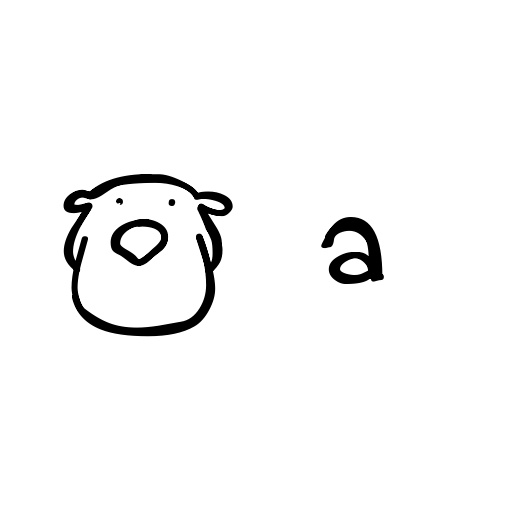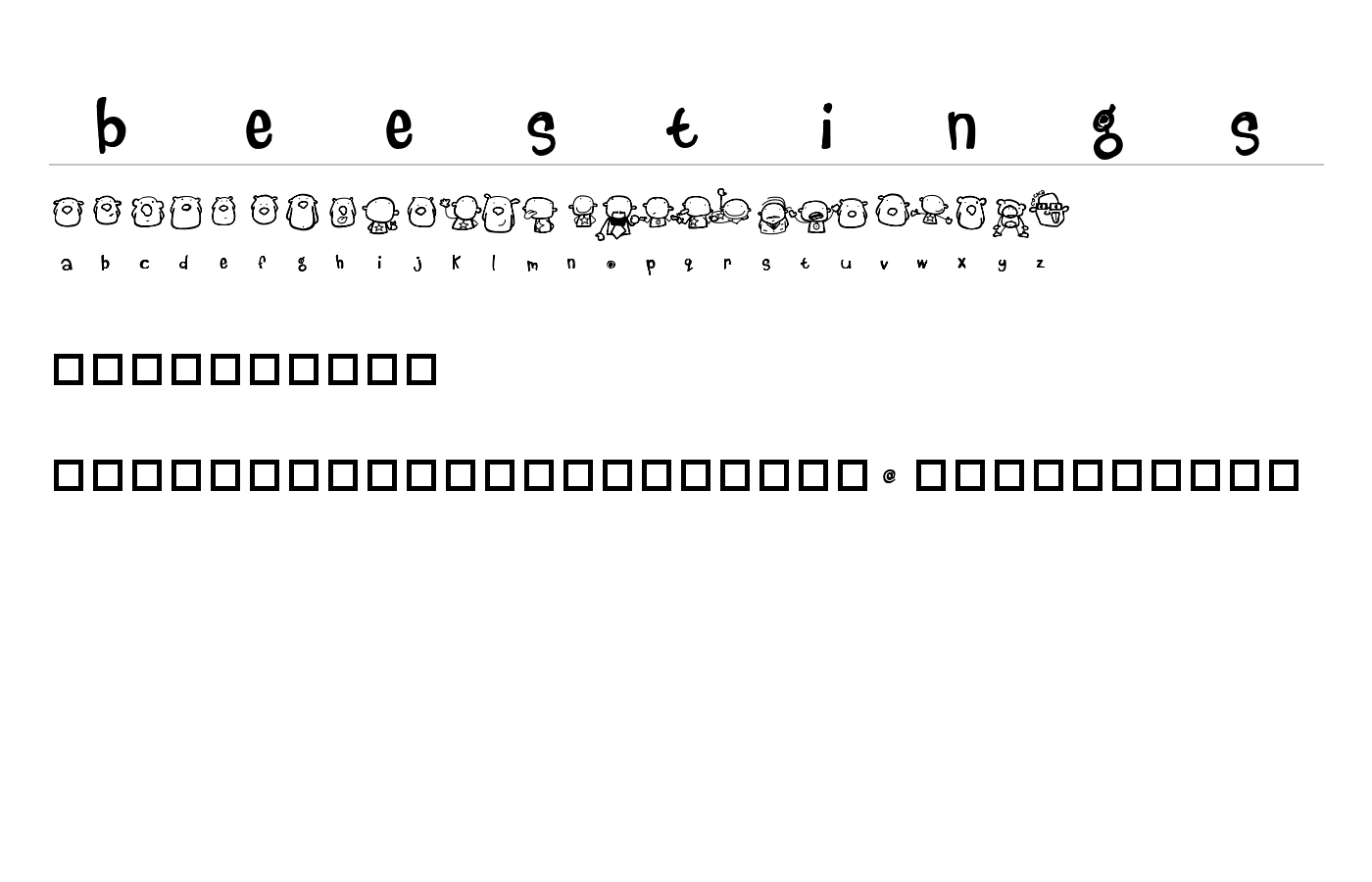
Beestings is a playful, hand-drawn sans serif font featuring quirky, uneven strokes and charming character shapes that give it a whimsical and friendly feel. Its irregular forms and casual style make it perfect for creative projects, kids' designs, or any context where a lighthearted and informal tone is desired. This font works well in logos, posters, and fun editorial materials, adding a unique personality that stands out with its distinctive, handcrafted vibe.
beestings Font
About beestings Font